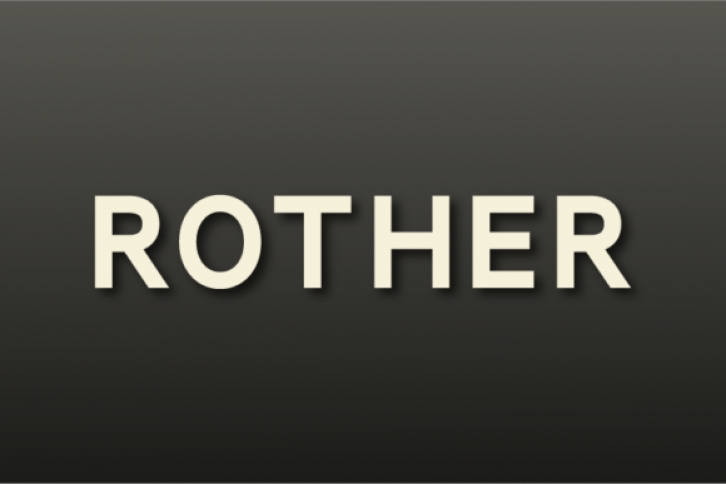
Rother is a clean letered and neat sans serif font. It can easily be matched to an incredibly large set of projects, so add it to your creative ideas and notice how it makes them stand out!